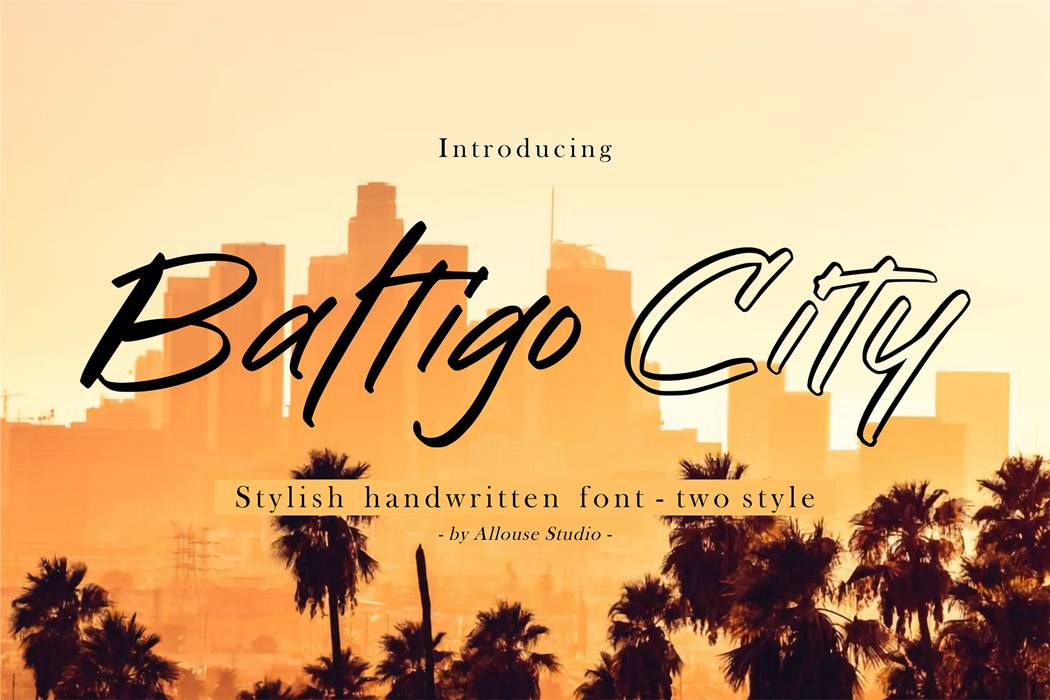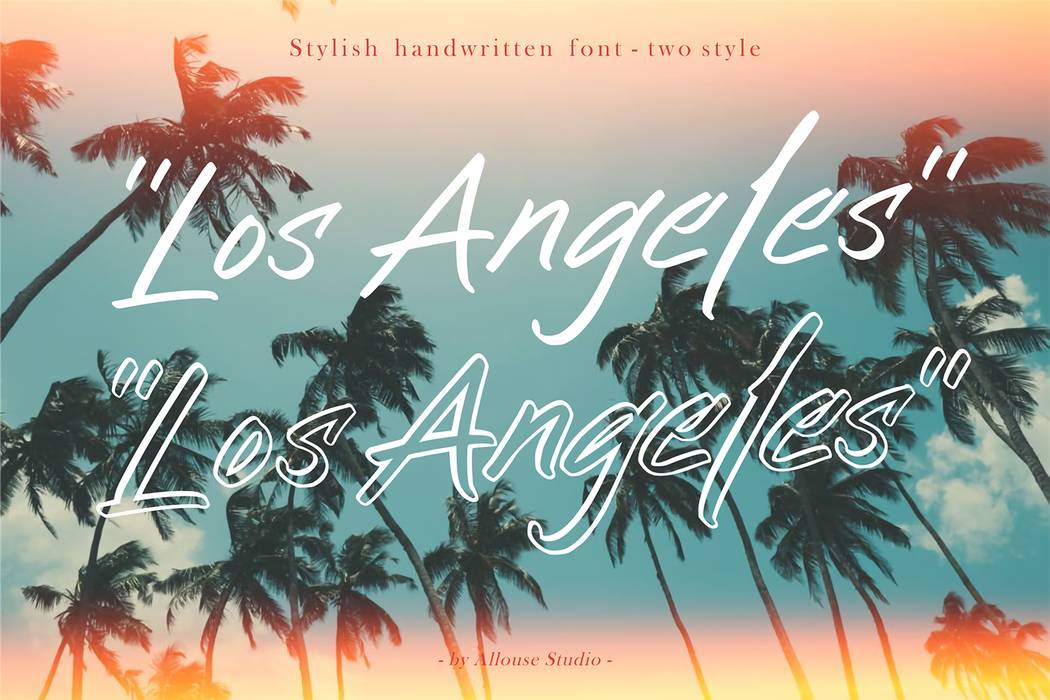
Baltigo City is a sleek, modern script font with a hand-drawn feel, featuring a light weight and flowing, slightly condensed letterforms. Its smooth, sharp strokes create an elegant yet casual vibe, making it perfect for creative branding, lifestyle projects, and eye-catching headlines. This font works well where a personal, dynamic touch is desired, adding energy and style without sacrificing readability.
Baltigo City Font
About Baltigo City Font